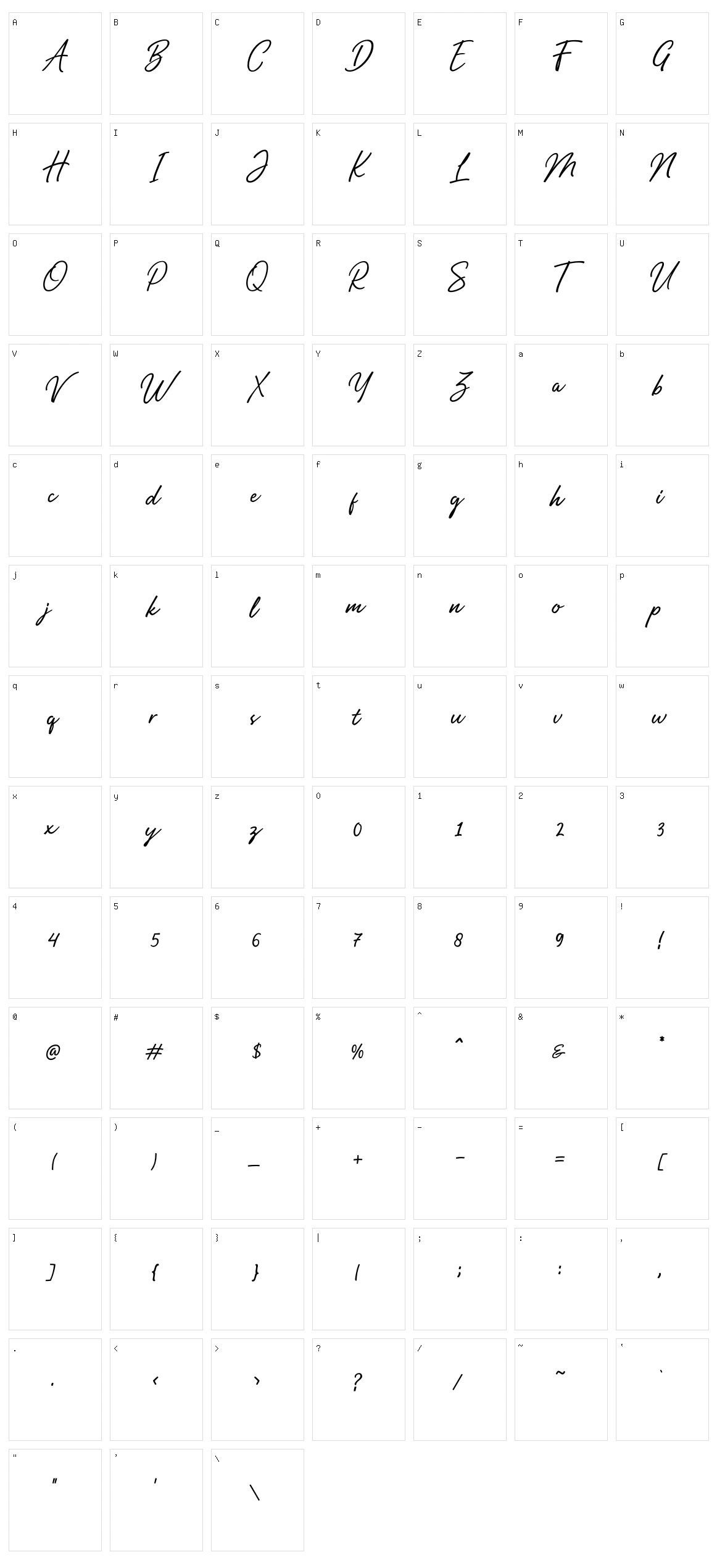
The free font Manthoels is carefully designed by Almarkhatype, showcasing a thoughtful balance of creativity and usability and falls under the Script font style. When you download the ZIP file, it contains only 828.15 KB of font files, making it lightweight and quick to download. Please review the license details below to understand permitted usage and distribution rights. If license information is not available, we recommend using this font for personal projects only or contacting the author directly for commercial usage permissions.
Manthoels Font By Almarkhatype Studio